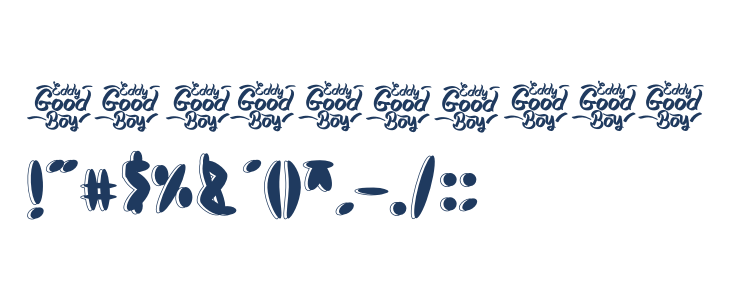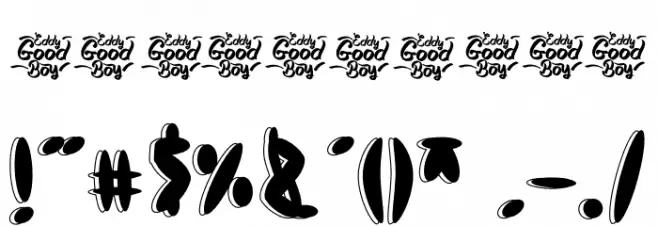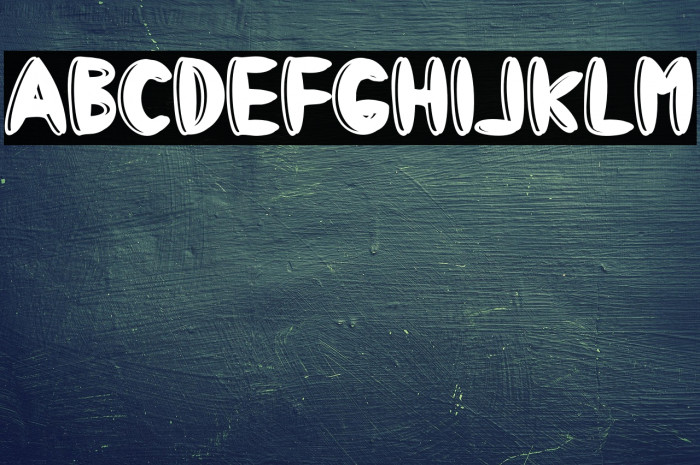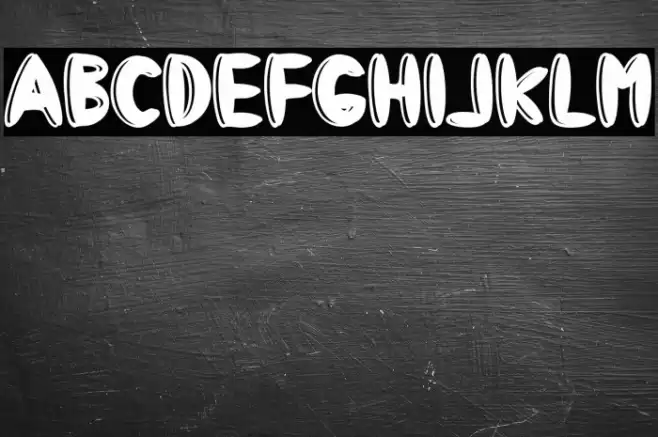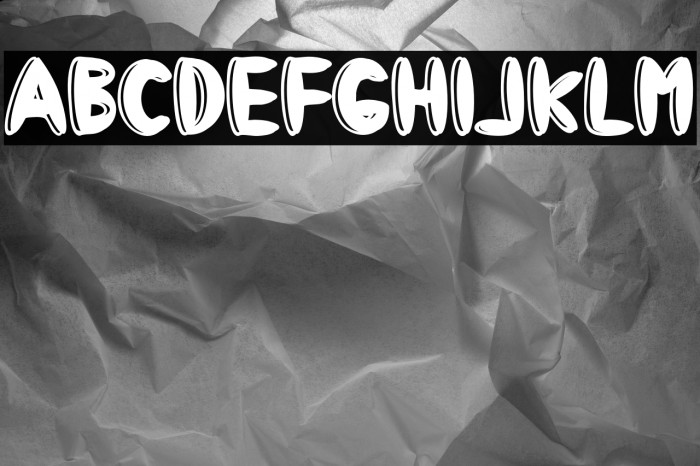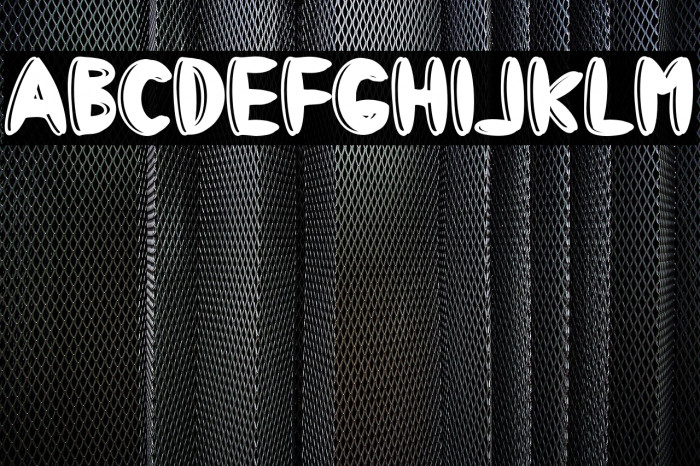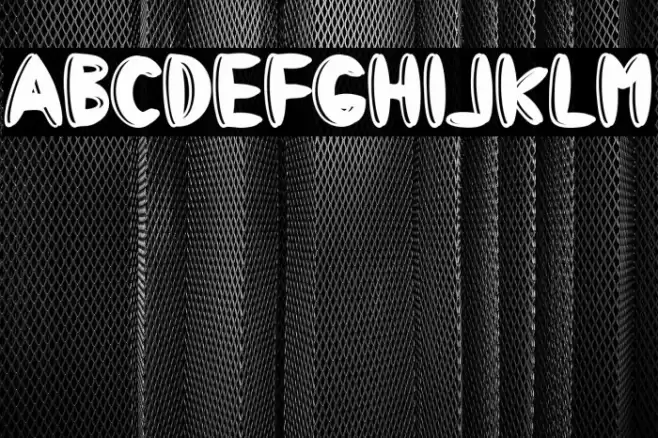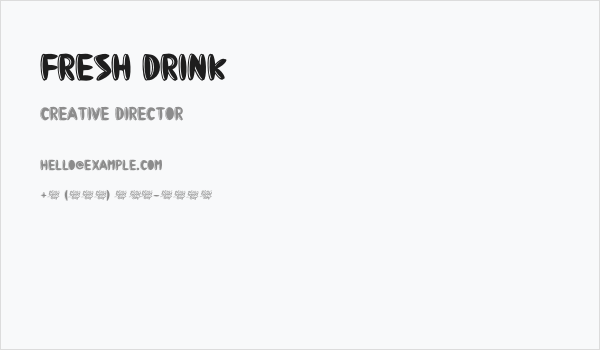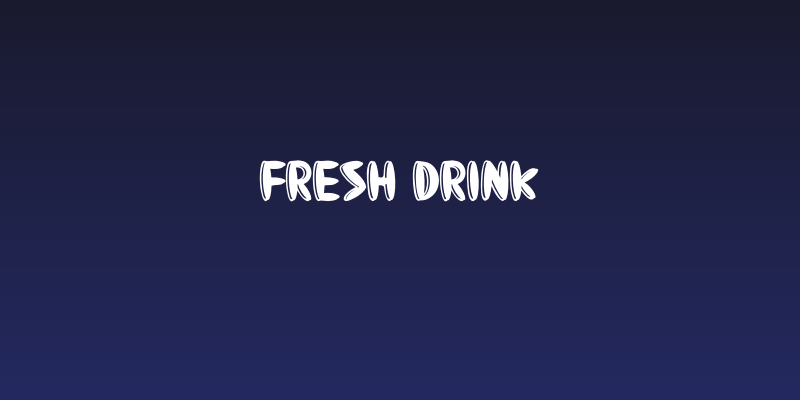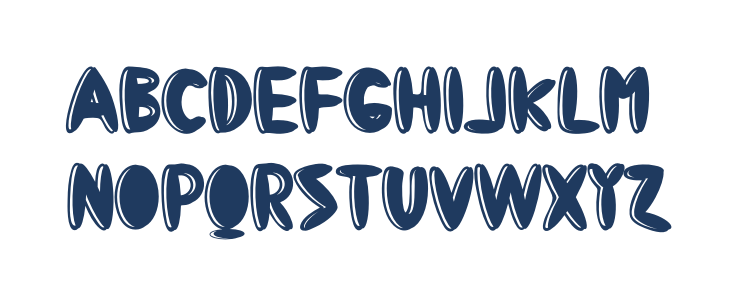
Fresh Drink Font
Fresh Drink Description
This font features a playful and bold design with a unique, bubbly appearance. The characters are rounded and thick, giving them a friendly and approachable feel. The uppercase and lowercase letters maintain a consistent style, with exaggerated curves and a slightly whimsical touch. The numbers and special characters follow the same design principles, ensuring a cohesive look across all elements. This font's distinctive style makes it stand out, perfect for projects that require a fun and lively aesthetic.
| Overall Style | Playful, Fun |
| Proposed Projects | Ideal for children's books, playful branding, party invitations, and any project needing a fun, lively touch. |